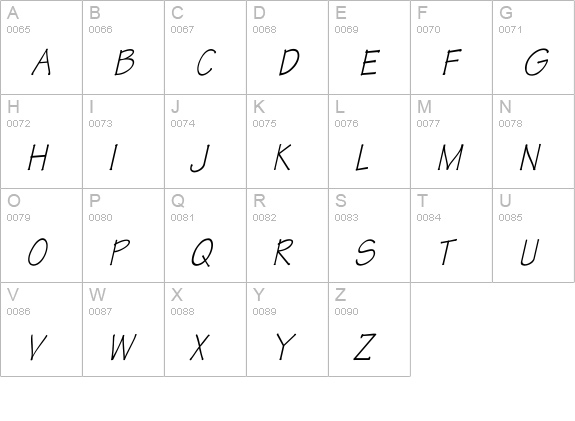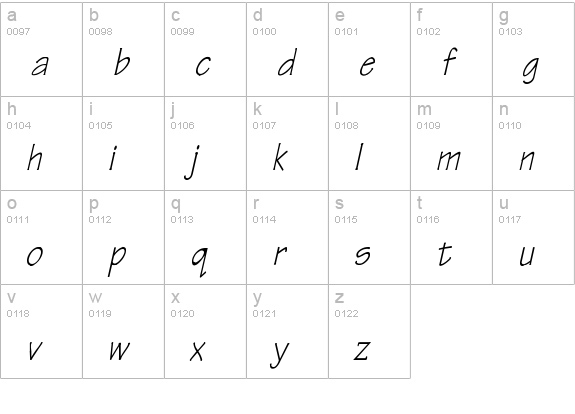
Tekton Th Italic Font Details
Tekton Th Italic is a distinctive, italic variant in the Tekton typeface family \xE2\x80\x94 well suited to design and typography projects.
Introducing Tekton Th Italic, a captivating and versatile font that effortlessly combines elegance with a touch of playfulness. This font is the perfect choice for those seeking to add a unique and stylish flair to their designs. With its sleek and slanted italic style, Tekton Th Italic exudes a sense of dynamism and movement, making it ideal for projects that require a modern and contemporary look. The carefully crafted letterforms of Tekton Th Italic showcase a harmonious balance between boldness and delicacy. Its sharp and precise lines are complemented by subtle curves, creating a visually pleasing contrast that catches the eye. Whether used for headings, titles, or body text, this font effortlessly captures attention and ensures a memorable reading experience. But what sets Tekton Th Italic apart is not just its exquisite design; it is also freely available to download at FontsMarket.com. Yes, you read that right – this exceptional font can be yours without spending a dime. Embrace the freedom to explore your creativity with Tekton Th Italic, knowing that you have access to a high-quality and professionally designed font that won't break the bank. Ideal for a wide range of design projects, from branding and advertising to editorial layouts and social media posts, Tekton Th Italic offers versatility and flexibility. Its timeless appeal makes it suitable for both contemporary and classic designs, ensuring that it will remain a valuable asset in your font library for years to come. So why wait? Take advantage of this incredible opportunity to enhance your designs with the captivating beauty of Tekton Th Italic. Download it for free at FontsMarket.com and let your imagination soar. Unleash your creativity and make a lasting impression with this remarkable font – the possibilities are endless.